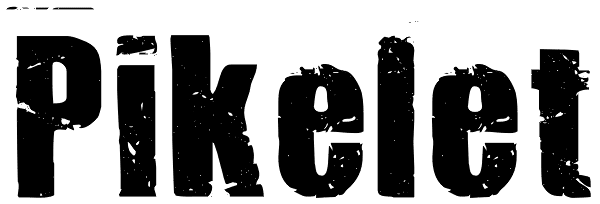
Pikelet
Pikelet is a misprinted grunge font ideally suited to headlines, poster and display. As well as irregularities of printing in the actual letters, the ordinary versions contain "print errors" around some of the letters, whereas the Clean versions are...
Pikelet Raised
Pikelet Caps Clean
Pikelet
Pikelet Caps Jumbled
Pikelet Clean
Pikelet Caps
Pikelet Jumbled